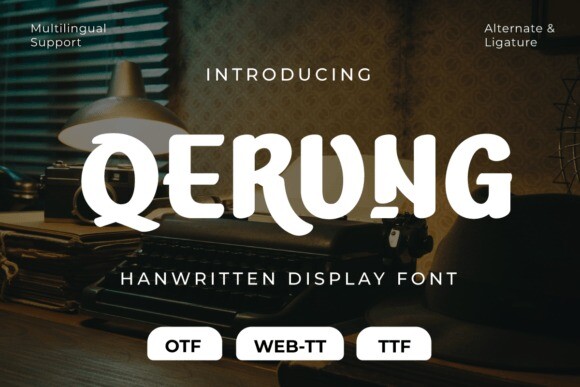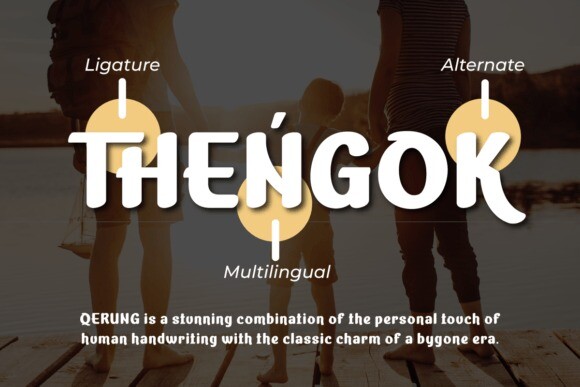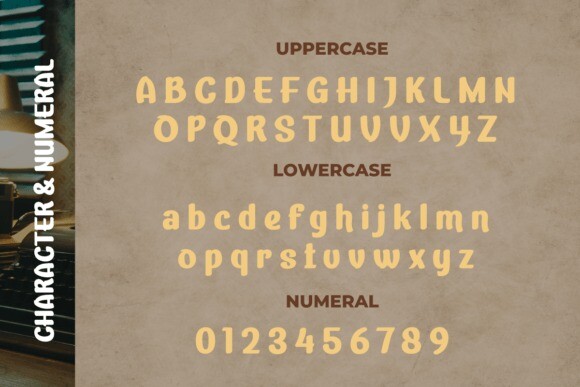
Qerung Font
QERUNG Font – Where Handwriting Takes Center Stage.
QERUNG Font is the embodiment of handwritten artistry. With its captivating handwriting theme, this font adds an authentic touch to your creative projects, making it the perfect choice for those seeking the genuine charm of handwritten script. Whether you’re designing invitations, posters, or branding materials, QERUNGFont effortlessly captures attention and infuses your designs with the character of real handwriting.
Crafted with meticulous care, QERUNGFont exudes the warmth and uniqueness of handwritten script, forging an instant connection with your audience.
Its versatility knows no bounds, making it suitable for a wide range of applications, from heartfelt notes to personalized branding.
QERUNG Font elevates both readability and style with its graceful strokes and fluid lines, providing a natural and appealing look to your text. It also offers support for multiple languages, ensuring it resonates with a global audience.
Elevate your creative projects with the authenticity of QERUNG Font. Explore this exceptional typeface today and bring the genuine beauty of handwriting to your designs.